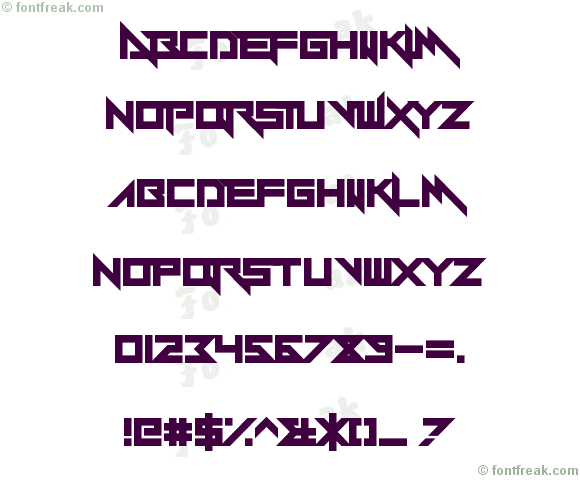
Y-Andermo Regular
About Y-Andermo Regular
Y-Andermo Regular by Andrew McCluskey is a striking display font that showcases a unique blend of modernity and artistic flair. This font falls into the category of decorative typefaces, characterized by its bold geometric shapes and unconventional letterforms. The stroke weight varies dramatically, lending a sense of dynamism and intrigue to each character. The contrasting elements create a visually captivating experience, making it stand out in various design contexts. The spacing is thoughtfully arranged, ensuring legibility while maintaining an artistic vibe that enhances the overall aesthetic.
This font is perfect for a variety of creative projects. It excels in use cases such as movie posters, where its dramatic style can attract attention and convey a sense of adventure or excitement. Additionally, Y-Andermo Regular is an excellent choice for branding materials, especially for businesses aiming for a contemporary and edgy look. It can also elevate restaurant menus, adding a unique touch that reflects a modern culinary experience. For content creators, especially those involved in graphic design, this font can be a valuable asset for social media graphics, promotional materials, and personal projects.
What sets Y-Andermo Regular apart is its ability to blend artistic expression with functionality. It challenges conventional typography norms while remaining adaptable to various design needs. This font is not just about aesthetics; it’s a tool for creativity that can elevate your projects to new heights. Experience the uniqueness of the Y-Andermo Regular font free download today and transform your designs.